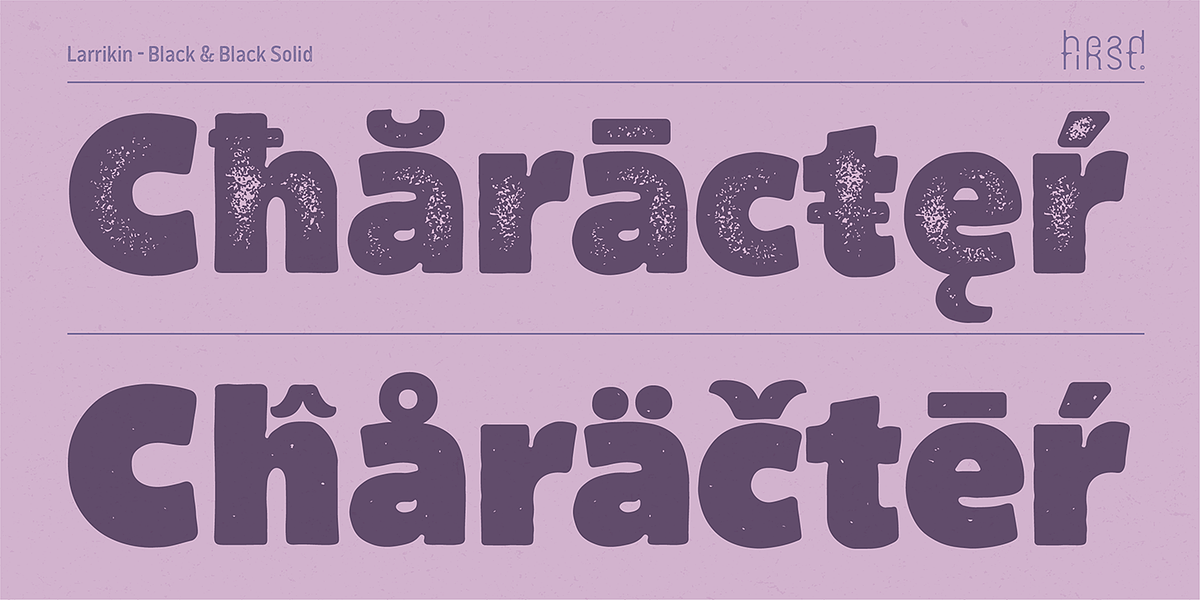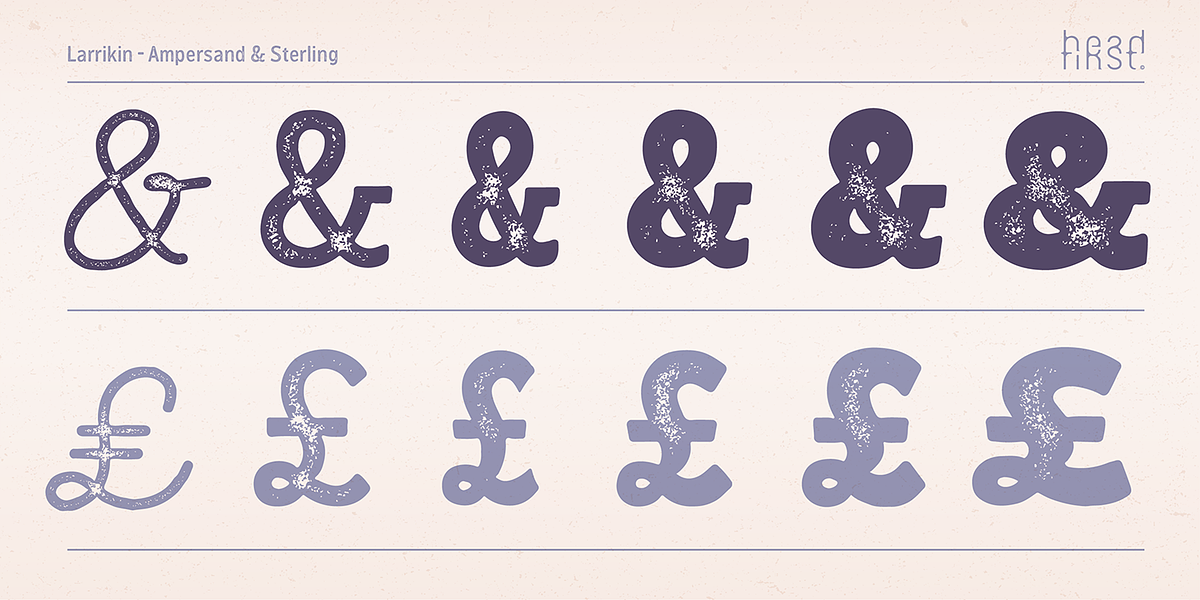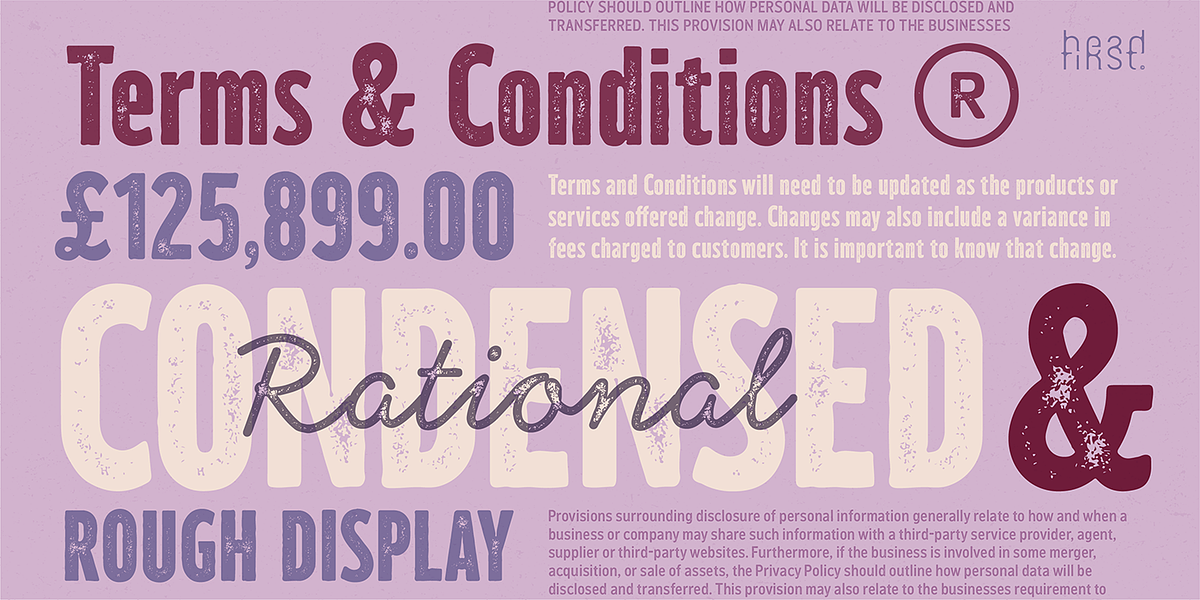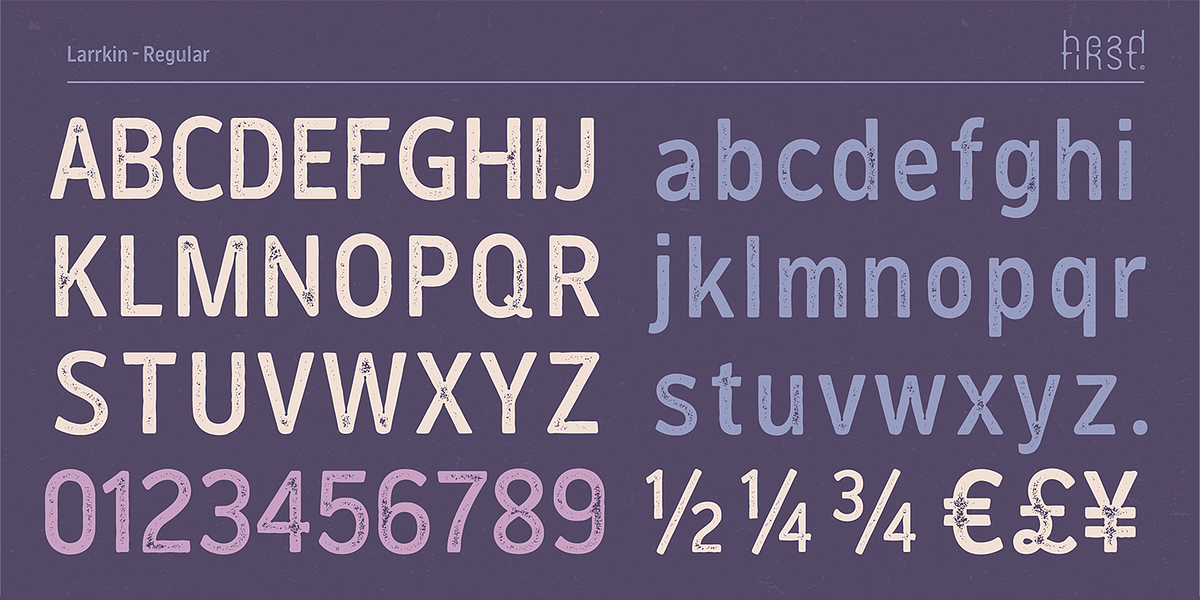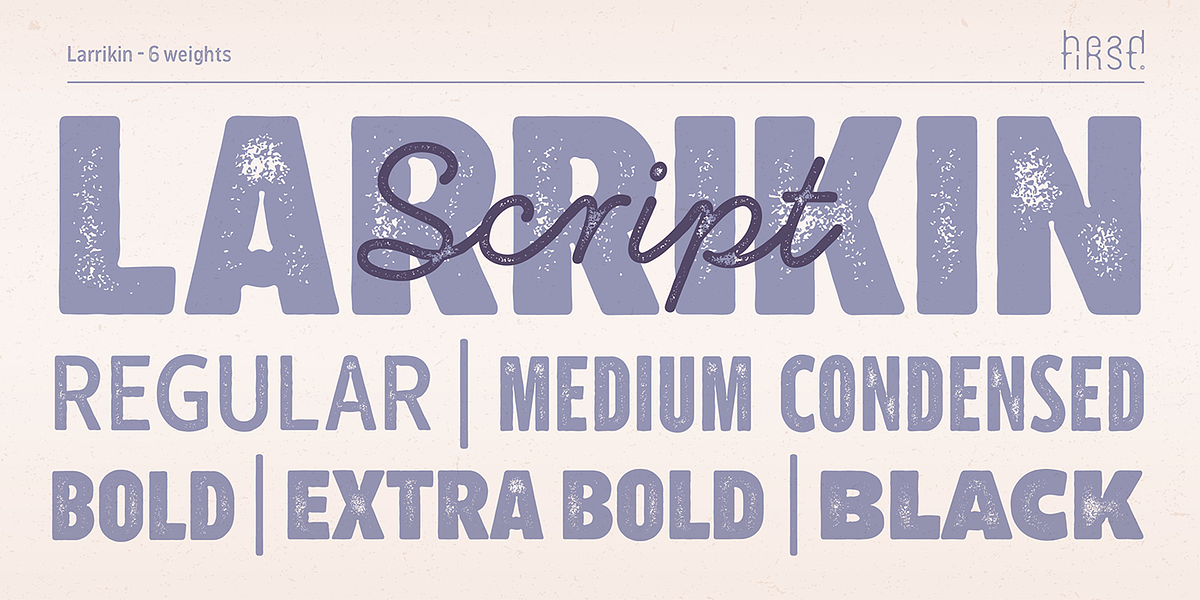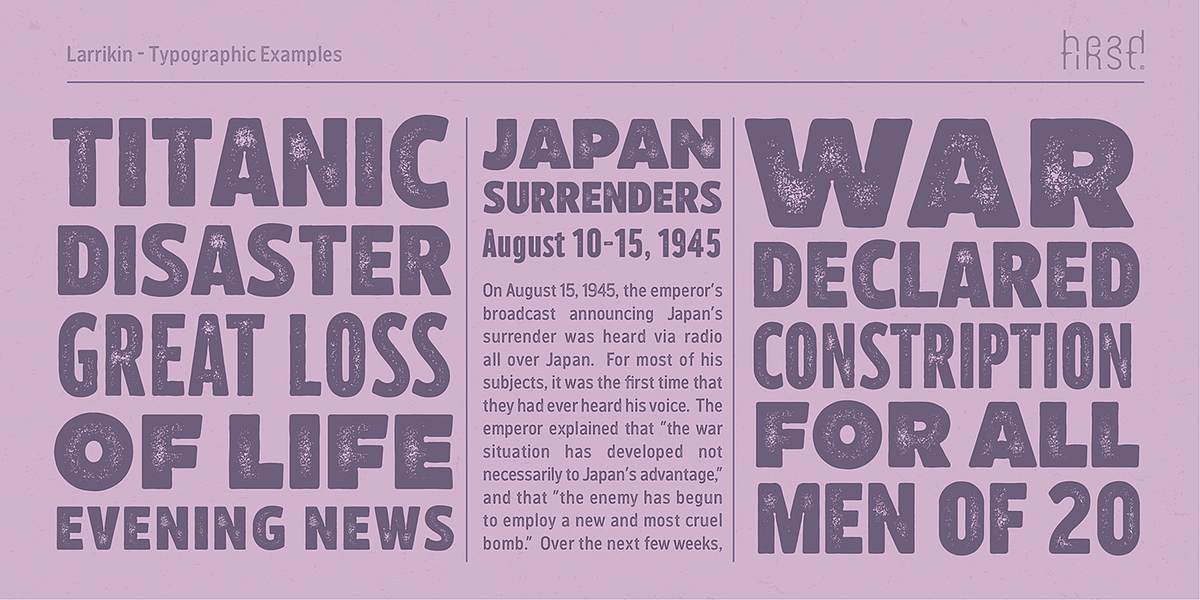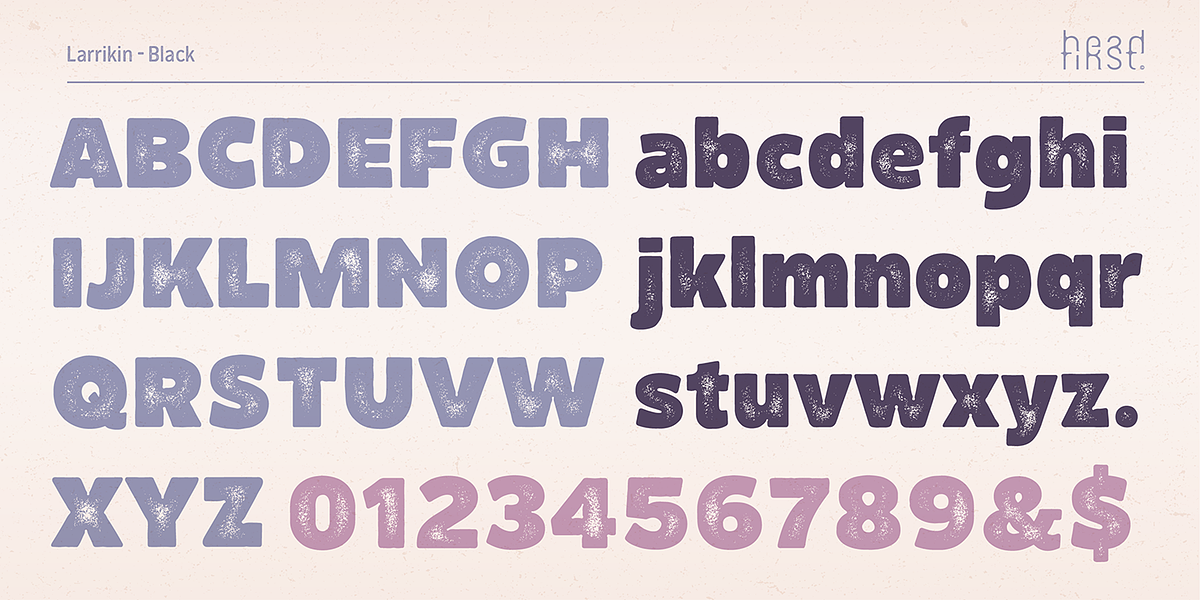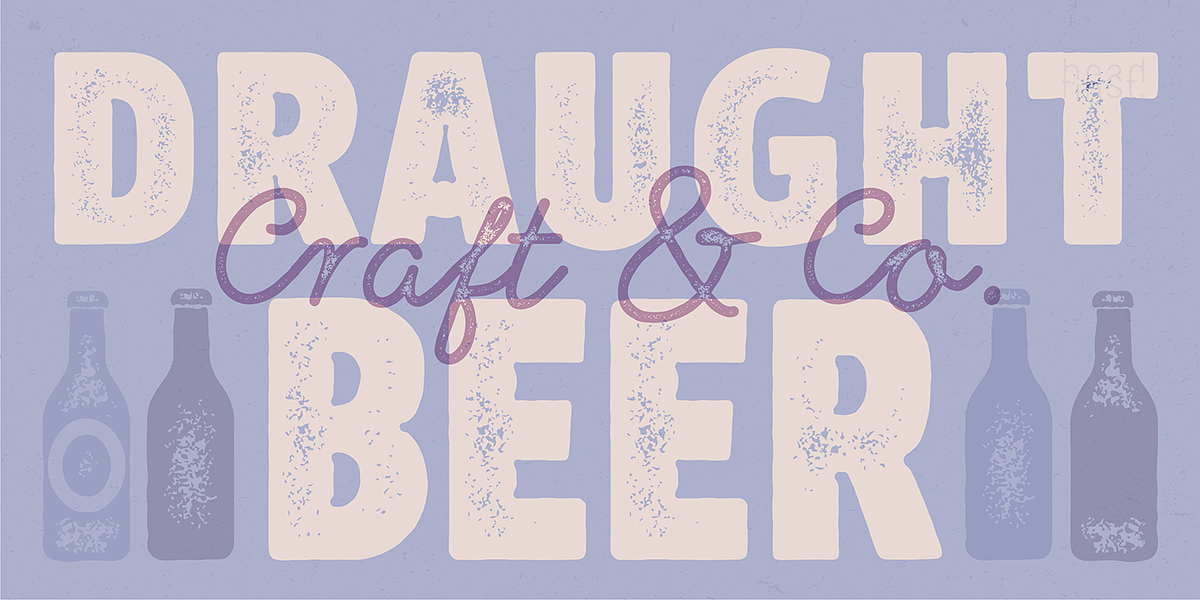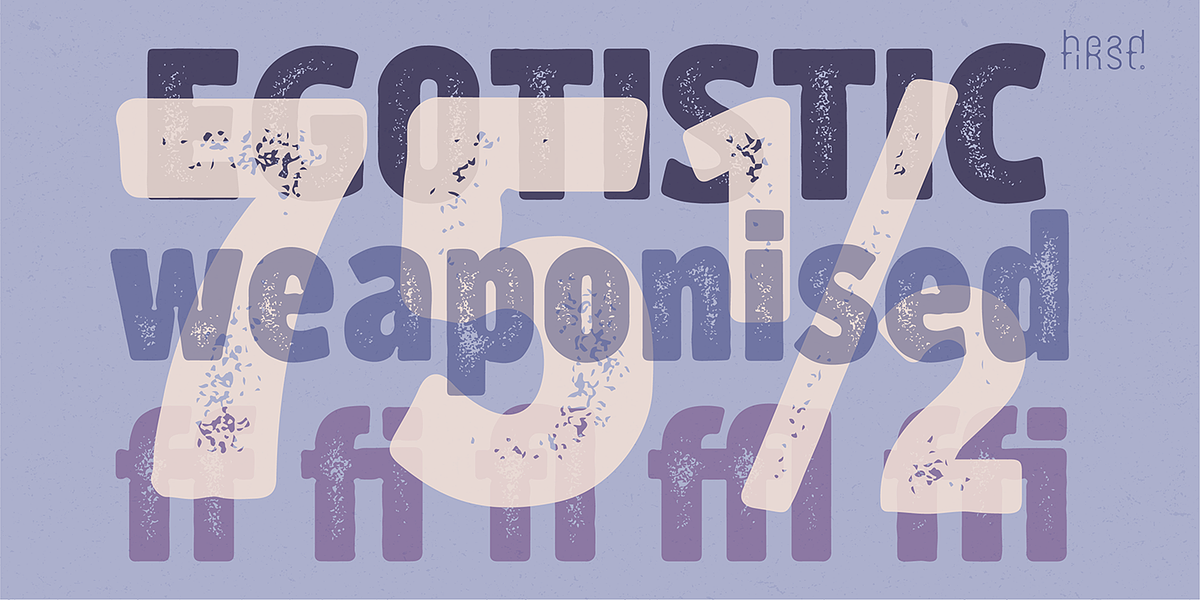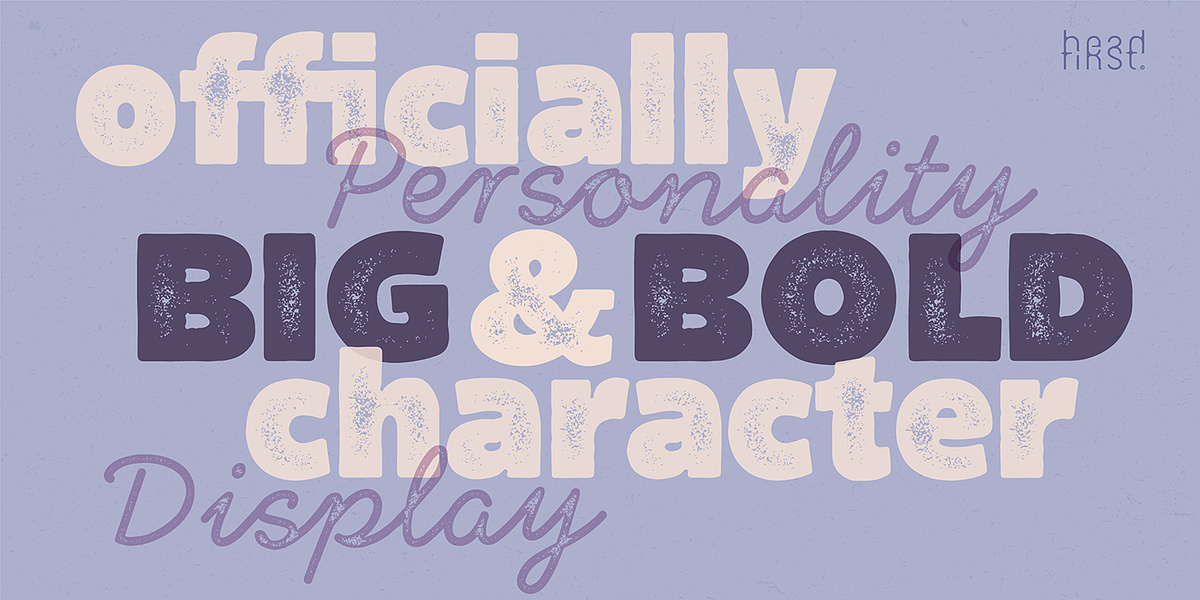
Larrikin
Larrikin is a geometric display sans-serif typeface that draws inspiration from hand-carved woodcuts. Its distinctive textured and distressed appearance gives it a vintage feel. The font comes in six weights, each available in both rough and solid variations, offering versatility for various design applications.